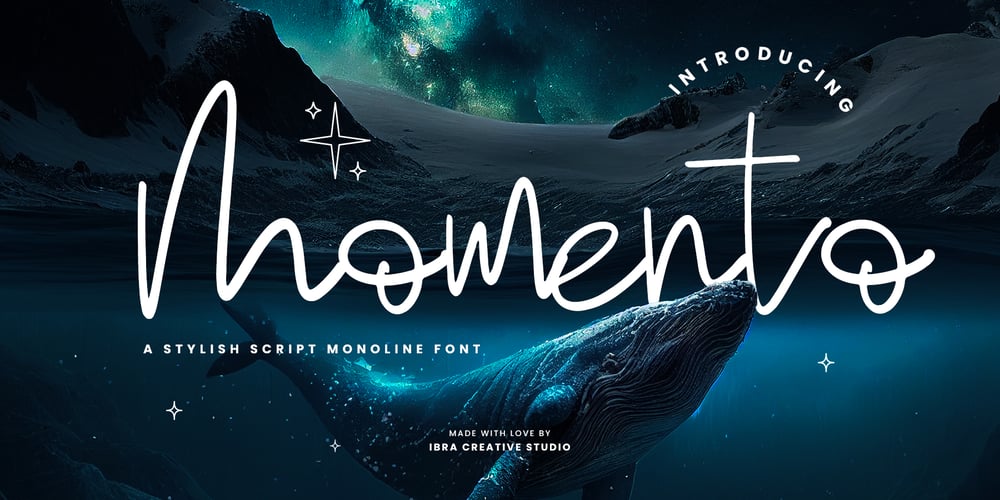
Momento Font Family was designed by Roisatul Azizah and published by IbraCreative. Momento contains 1 styles and family package options. Momento – A Stylish Script Monoline FontMomento, a stylish script monoline font, effortlessly marries elegance with modernity in a seamless dance of curves and lines. The graceful strokes of each letter exude a sense of sophistication, making it an ideal choice for projects that demand a touch of refined aesthetics. The monoline design maintains a consistent thickness throughout, adding a contemporary flair to the timeless script style. With its fluid connections and balanced spacing, Momento captures a harmonious rhythm, allowing the script to flow effortlessly like a well-choreographed dance. Whether employed in invitations, branding, or other design ventures, Momento stands as a testament to the perfect fusion of style and versatility, offering a script font that is not only visually pleasing but also a timeless representation of modern elegance.Momento is perfect for branding projects, logo, wedding designs, social media posts, advertisements, product packaging, product designs, label, photography, watermark, invitation, stationery, game, fashion and any projects.Fonts include multilingual support for; Afrikaans, Albanian, Czech, Danish, Dutch, English, Estonian, Finnish, French, German, Hungarian, Italian, Latvian, Lithuanian, Norwegian, Polish, Portuguese, Slovak, Slovenian, Spanish, Swedish.